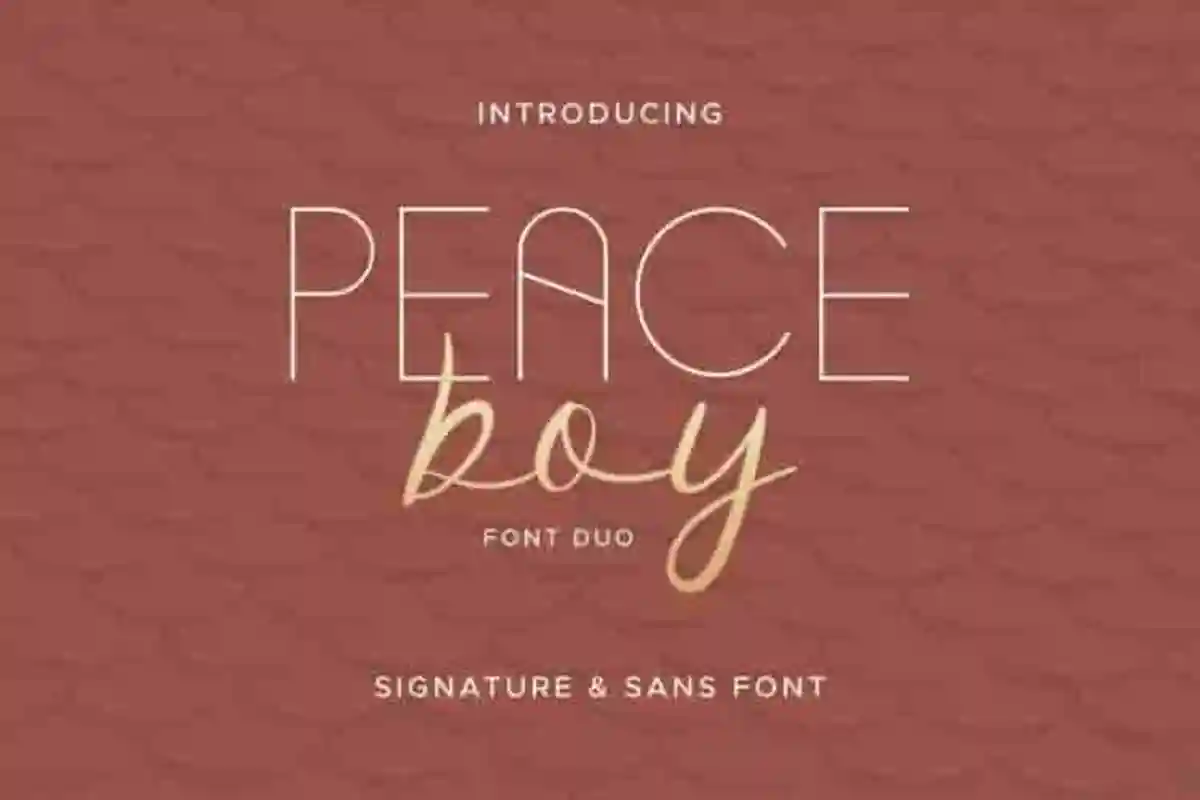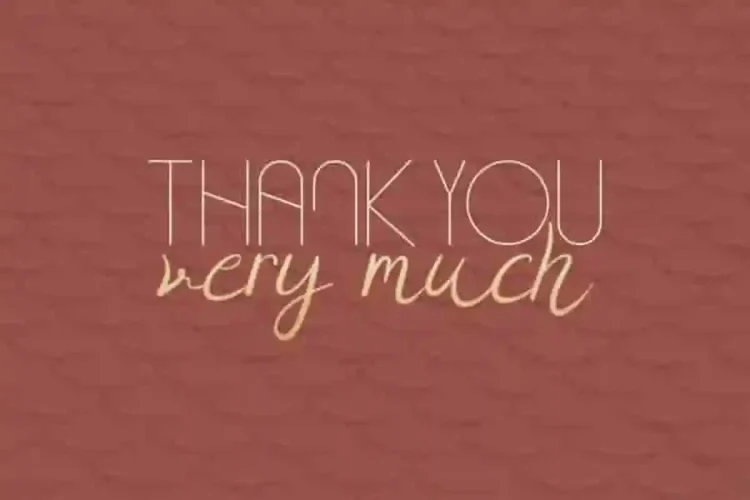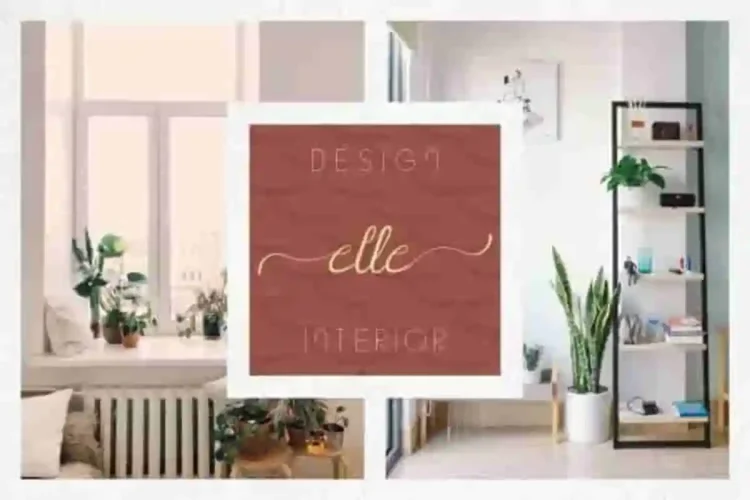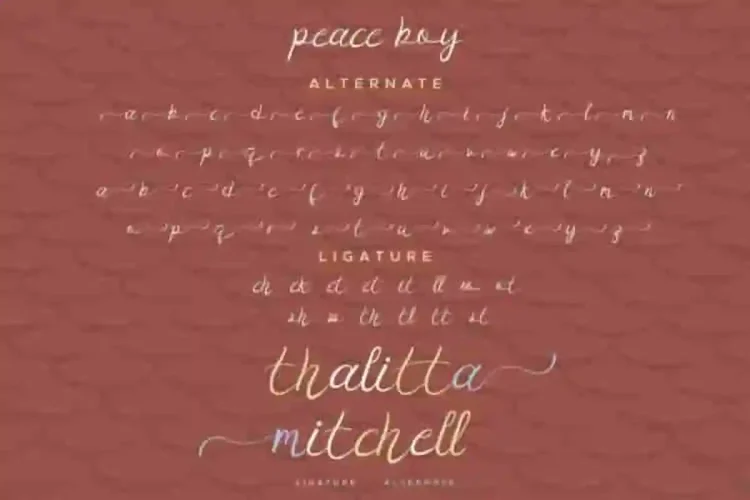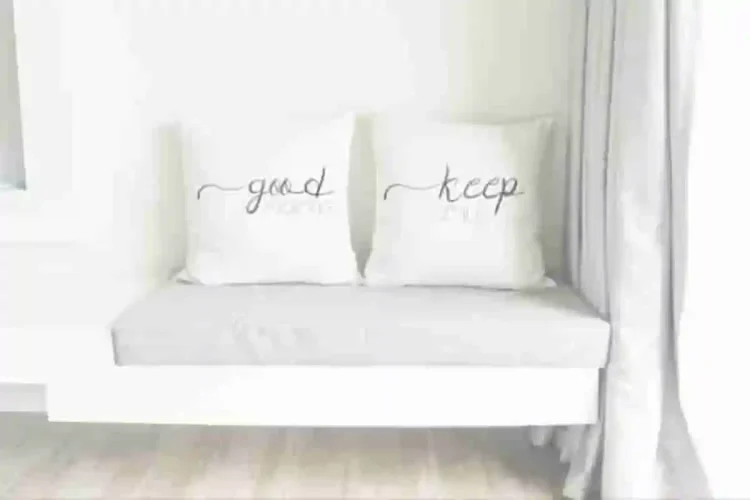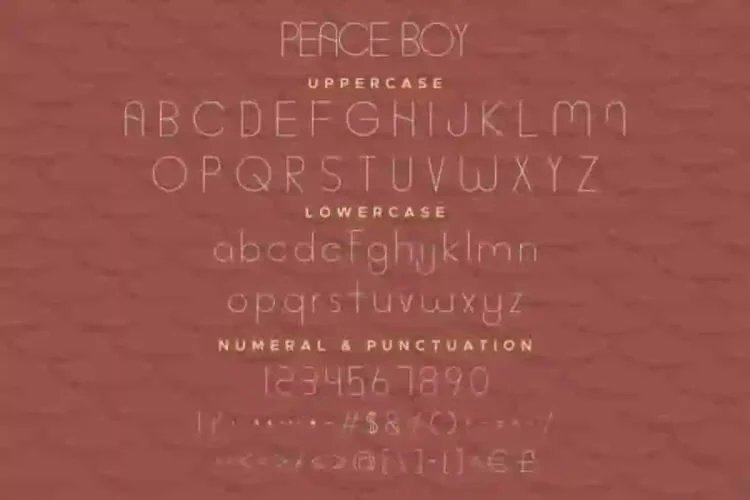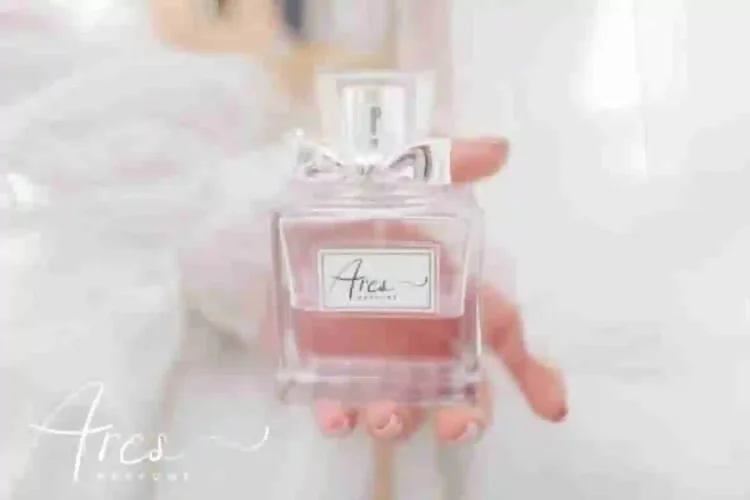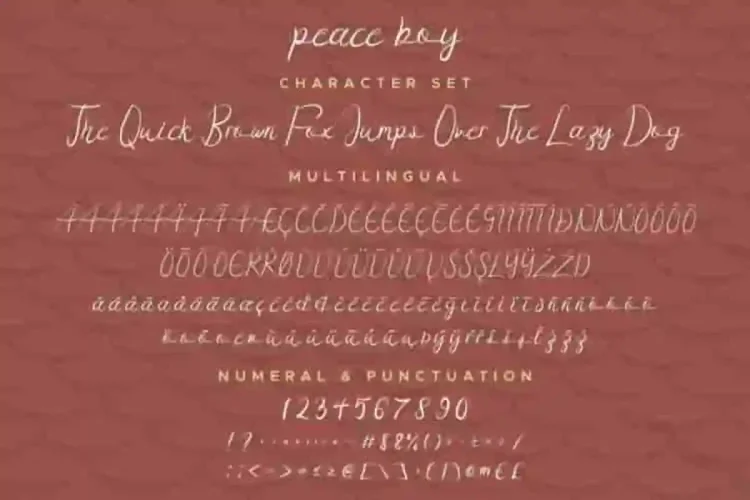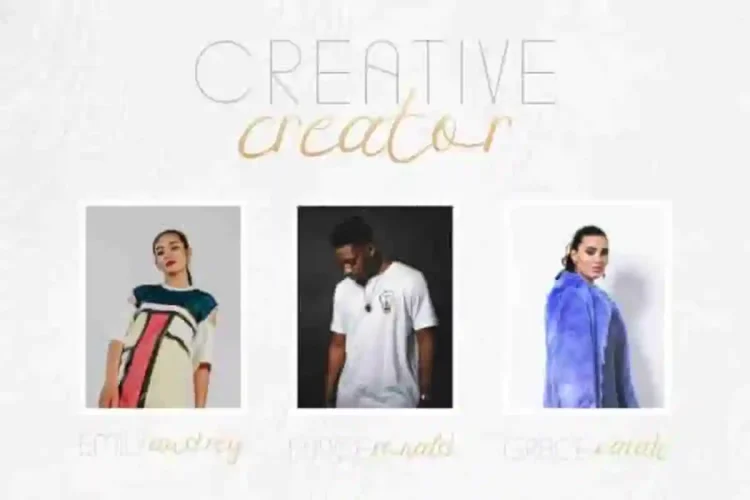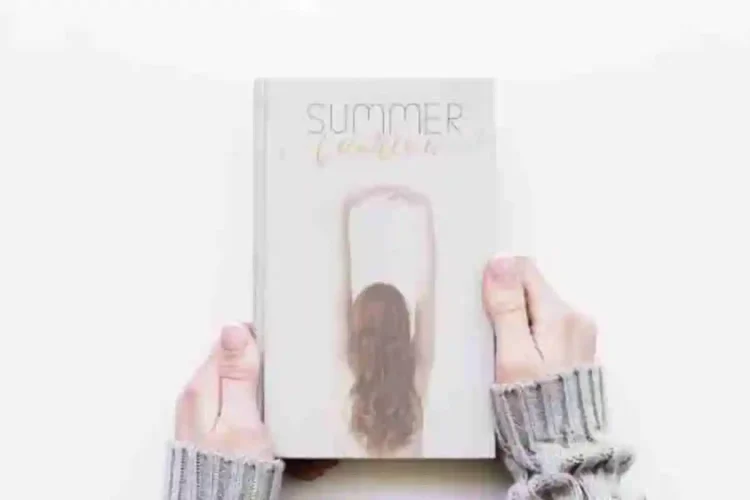
Peace Boy Signature Font Duo
The newest font from our studio  : Peace Boy Signature Font Duo
This is a font duo, handcrafted from our Studio here in Indonesia. The artists/designers of this beautiful tyeface are Ega, Yasri and Sarah Suci.
Peace Boy  Signature Font Duo is  exclusive font family with two complete different styles. These fonts have a stunning characters set, perfectly managed with well spaced and kerning.
Peace Boy Signature Font Duo will be great for any projects including : branding, logo, stationery, business card, signage, flyer, brochure etc. Almost all industries will be match for this typeface: wedding, events, real estate, architect, law firm, florist, gardening, makeup artist, travel, hotel, musician etc.